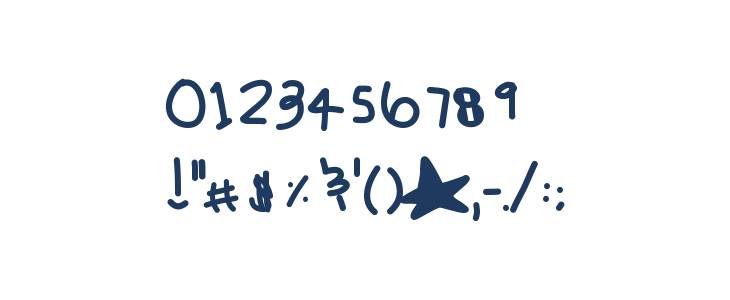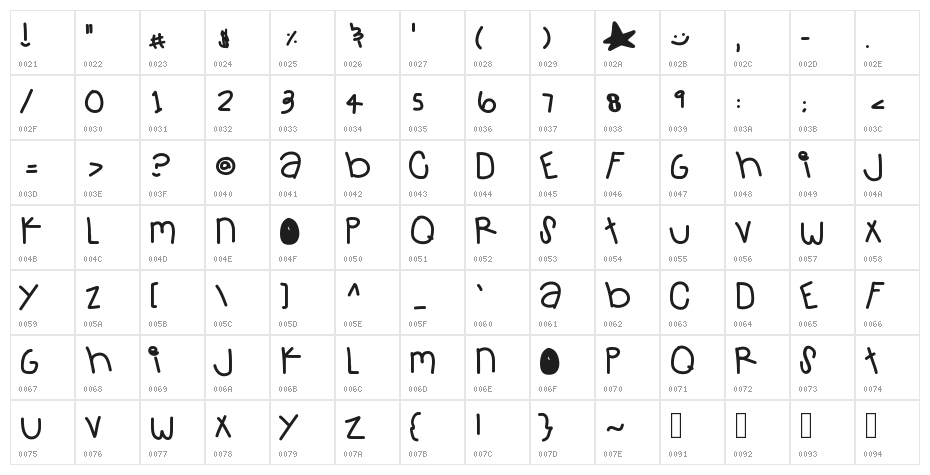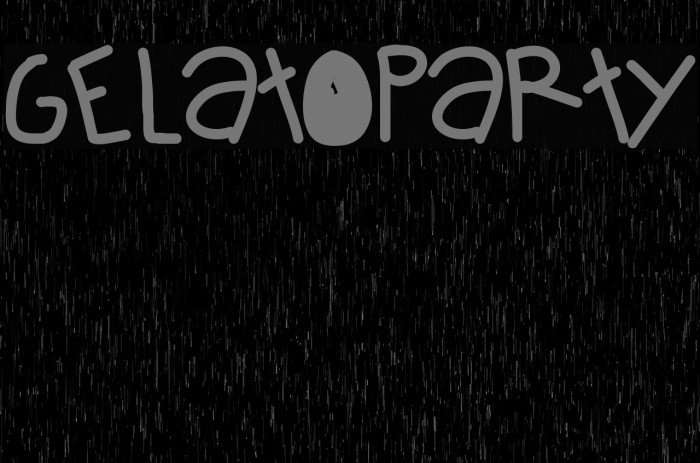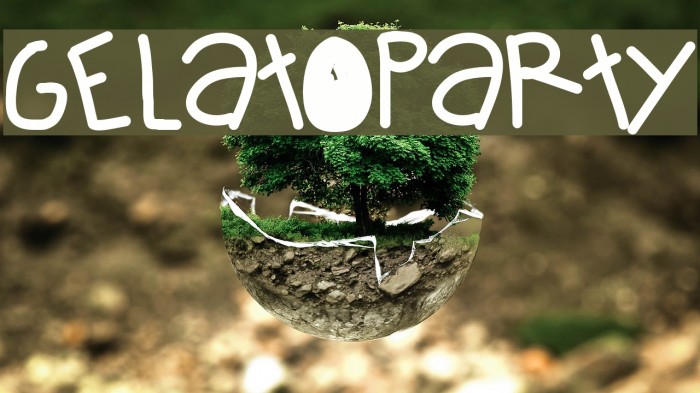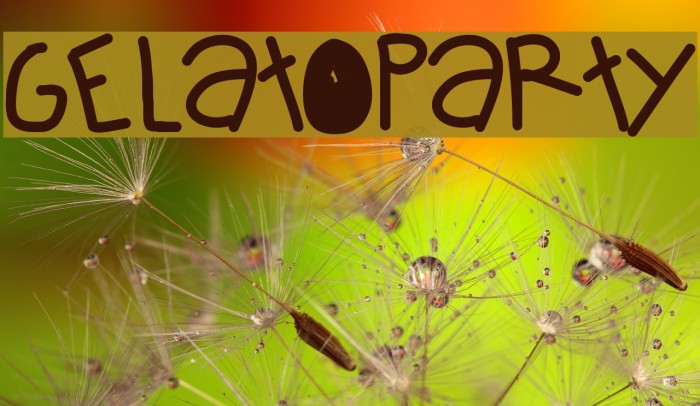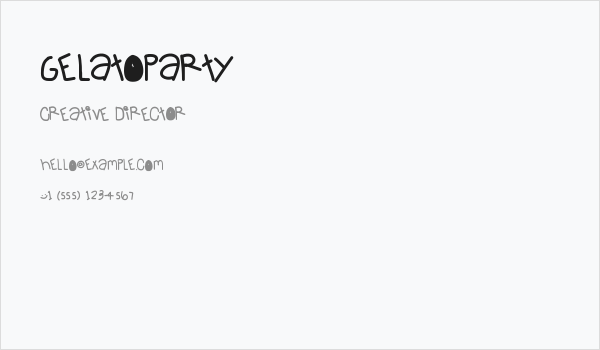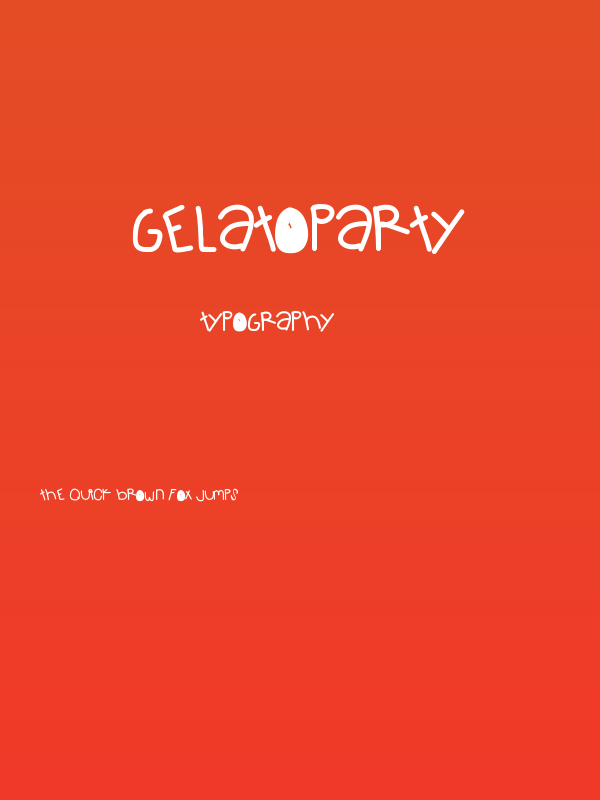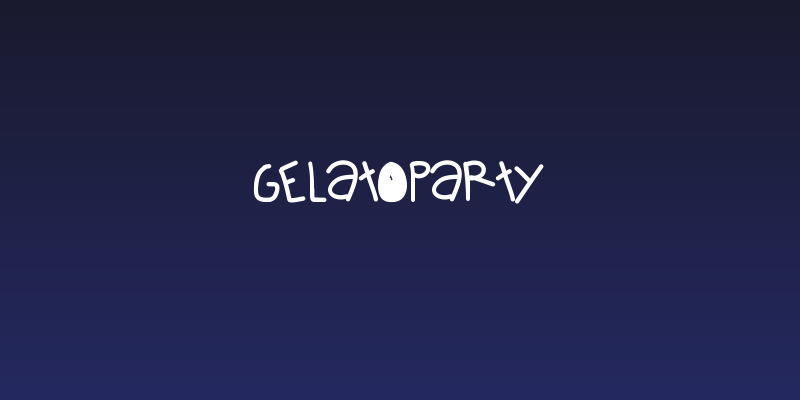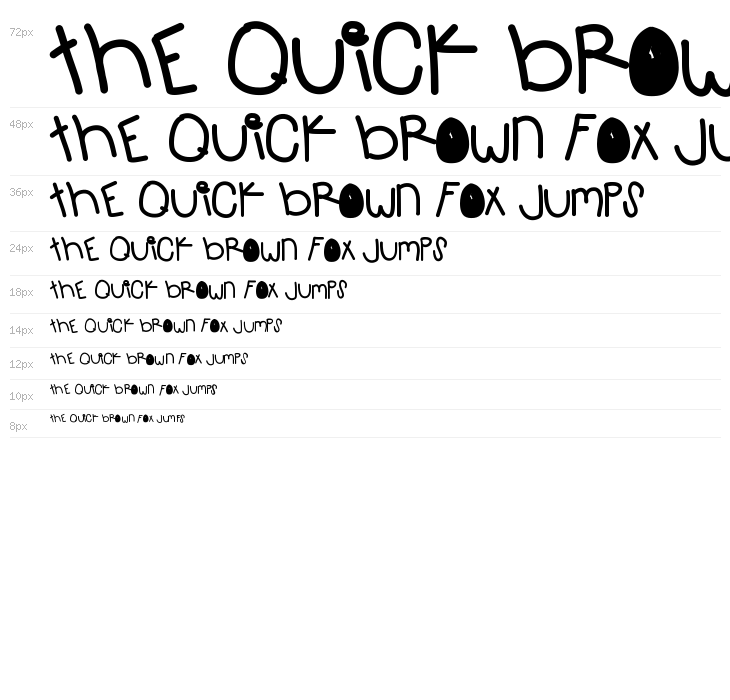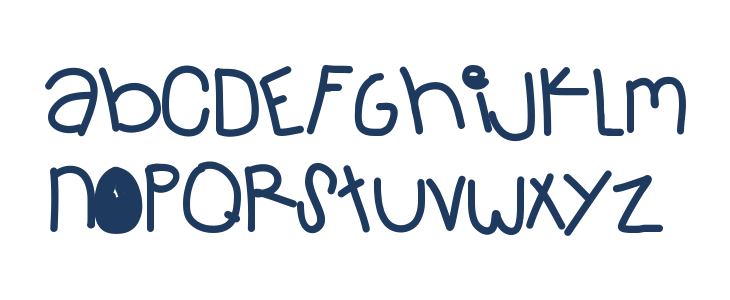
GelatoParty Font
GelatoParty Description
This playful and whimsical font features a handwritten style with a casual and friendly appearance. The letters are rounded and slightly irregular, giving it a charming and approachable look. The uppercase and lowercase letters maintain a consistent style, with some characters like 'O' and 'P' having unique, bold designs that stand out. The numbers are equally playful, with a consistent stroke width that matches the letters. Special characters are creatively designed, adding to the font's overall fun and lively personality. This font is perfect for projects that require a touch of humor and lightheartedness.
| Proposed Projects | Ideal for children's books, party invitations, playful branding, and casual social media graphics. |